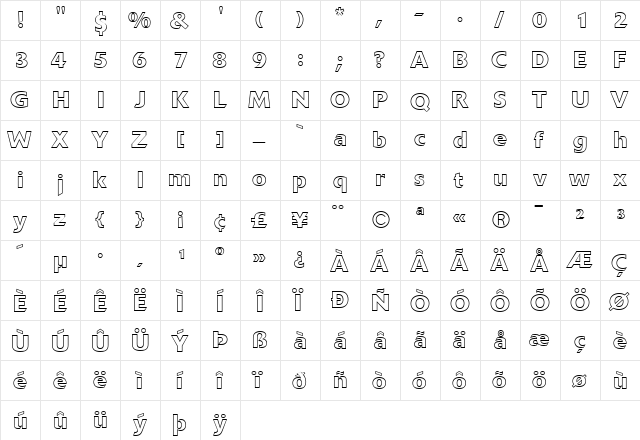
DeltaJaegerOutline Roman Font Preview
DeltaJaegerOutline Roman
Design Context for DeltaJaegerOutline Typeface
DeltaJaegerOutline is built around its visual character rather than neutral utility — its distinctive forms are designed to make an impression at display sizes.
Font Pairing: Pair with a clean neutral sans-serif for body copy to let DeltaJaegerOutline's character lead without overwhelming the composition.
Pro Tip: Use DeltaJaegerOutline exclusively at display sizes — it was designed to be seen, not read at length. Let a neutral companion handle body copy.